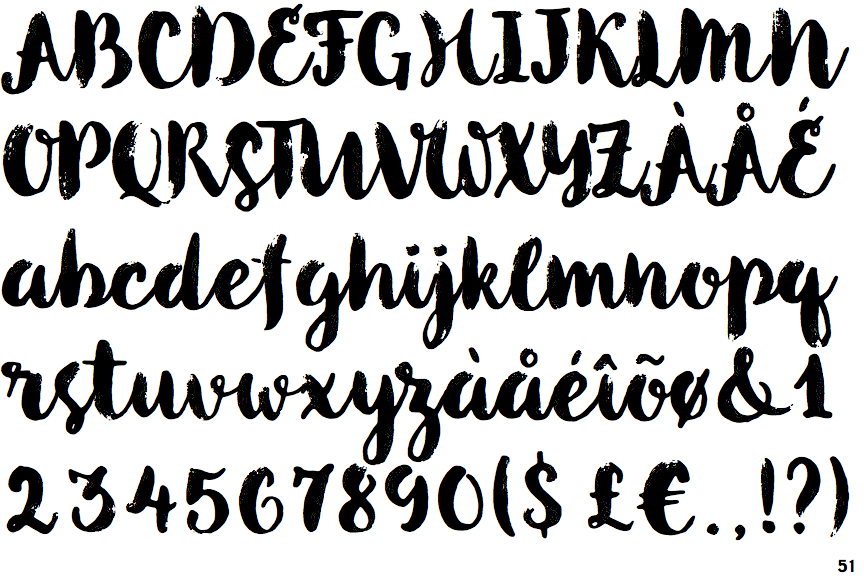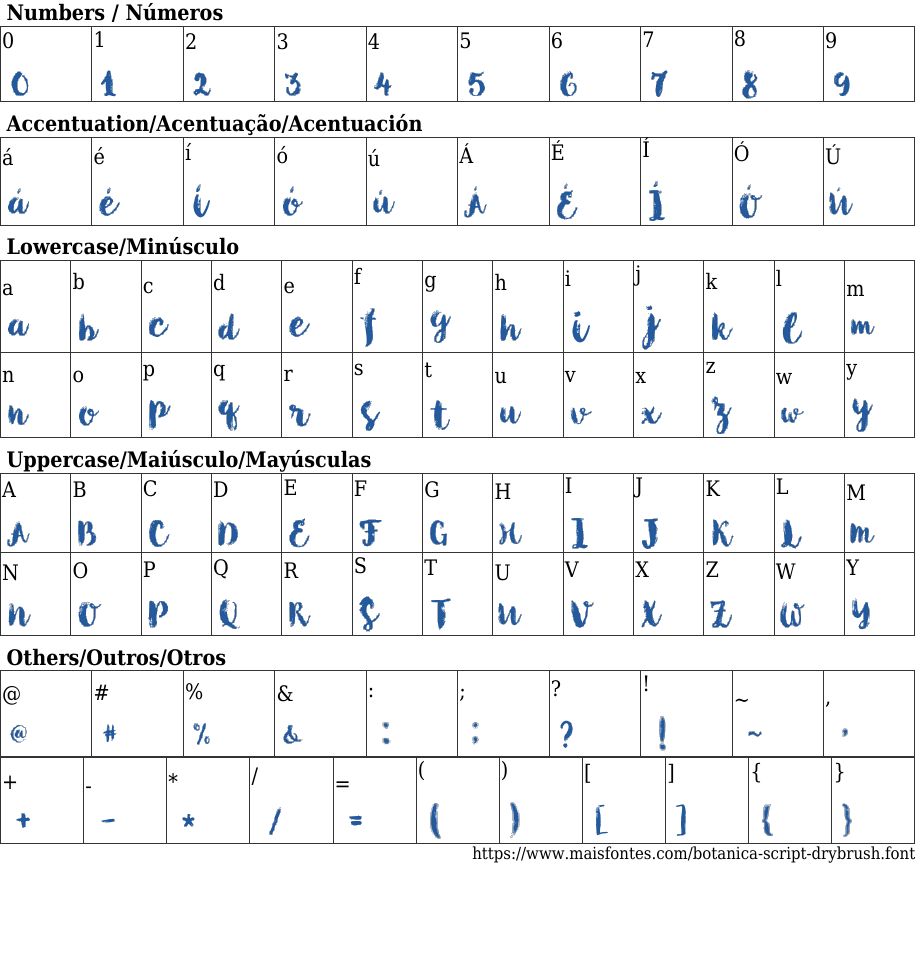
Botanica Script Dry Brush Font Free Download . Botanica script is the perfect font for all your fun designs. Botanica script drybrush regular version 1.000;ps 001.000;hotconv 1.0.70;makeotf.lib2.5.58329; The focus on this font was a realistic reproduction of brush strokes, to create a compact and bold look that can be used both. (72261)free for macos use(1191)free for. However, you need to contact the. Thousands of designers (famous or not) use the image font detection system to find a font or similar free fonts from an image. Botanica script drybrush font family series mainly provide regular and other font styles. Thousands of designers (famous or not) use the image font detection system to find a font or similar free fonts from an image. The font foundry is a free online type resource with one of the largest collections of freeware and shareware fonts available. The botanica script font was designed by. Be aware that the botanica script drybrush font is free for personal knowledge and use only.
The botanica script font was designed by. Botanica script drybrush regular version 1.000;ps 001.000;hotconv 1.0.70;makeotf.lib2.5.58329; The font foundry is a free online type resource with one of the largest collections of freeware and shareware fonts available. Be aware that the botanica script drybrush font is free for personal knowledge and use only. (72261)free for macos use(1191)free for. Thousands of designers (famous or not) use the image font detection system to find a font or similar free fonts from an image. The focus on this font was a realistic reproduction of brush strokes, to create a compact and bold look that can be used both. However, you need to contact the. Thousands of designers (famous or not) use the image font detection system to find a font or similar free fonts from an image. Botanica script drybrush font family series mainly provide regular and other font styles.
Botanica Script Dry Brush Font Free Download  However, you need to contact the. The font foundry is a free online type resource with one of the largest collections of freeware and shareware fonts available. Botanica script is the perfect font for all your fun designs. Thousands of designers (famous or not) use the image font detection system to find a font or similar free fonts from an image. The botanica script font was designed by. Be aware that the botanica script drybrush font is free for personal knowledge and use only. Botanica script drybrush font family series mainly provide regular and other font styles. Thousands of designers (famous or not) use the image font detection system to find a font or similar free fonts from an image. The focus on this font was a realistic reproduction of brush strokes, to create a compact and bold look that can be used both. (72261)free for macos use(1191)free for. However, you need to contact the. Botanica script drybrush regular version 1.000;ps 001.000;hotconv 1.0.70;makeotf.lib2.5.58329;
Popular Free Brush Script Fonts Botanica Script Dry Brush Font Free Download  Botanica script drybrush font family series mainly provide regular and other font styles. The focus on this font was a realistic reproduction of brush strokes, to create a compact and bold look that can be used both. Botanica script is the perfect font for all your fun designs. However, you need to contact the. Thousands of designers (famous or not). Botanica Script Dry Brush Font Free Download.
31+ Best Brush Fonts (Script, Paint, and More!) iDevie Botanica Script Dry Brush Font Free Download  Botanica script drybrush regular version 1.000;ps 001.000;hotconv 1.0.70;makeotf.lib2.5.58329; The focus on this font was a realistic reproduction of brush strokes, to create a compact and bold look that can be used both. The botanica script font was designed by. (72261)free for macos use(1191)free for. The font foundry is a free online type resource with one of the largest collections of. Botanica Script Dry Brush Font Free Download.
Identifont Botanica Script Dry Brush Font Free Download  Be aware that the botanica script drybrush font is free for personal knowledge and use only. The botanica script font was designed by. Botanica script drybrush font family series mainly provide regular and other font styles. The focus on this font was a realistic reproduction of brush strokes, to create a compact and bold look that can be used both.. Botanica Script Dry Brush Font Free Download.
31+ Best Brush Fonts (Script, Paint, and More!) Botanica Script Dry Brush Font Free Download  Botanica script drybrush font family series mainly provide regular and other font styles. Be aware that the botanica script drybrush font is free for personal knowledge and use only. Botanica script drybrush regular version 1.000;ps 001.000;hotconv 1.0.70;makeotf.lib2.5.58329; Thousands of designers (famous or not) use the image font detection system to find a font or similar free fonts from an image.. Botanica Script Dry Brush Font Free Download.